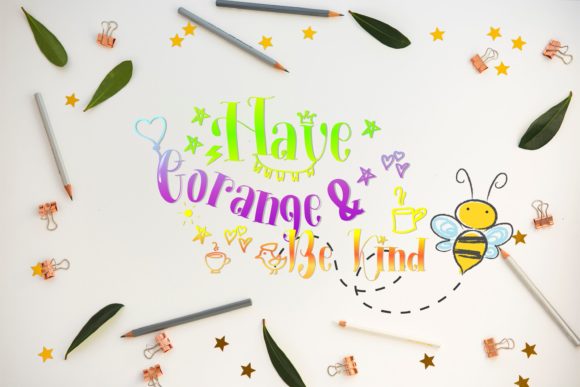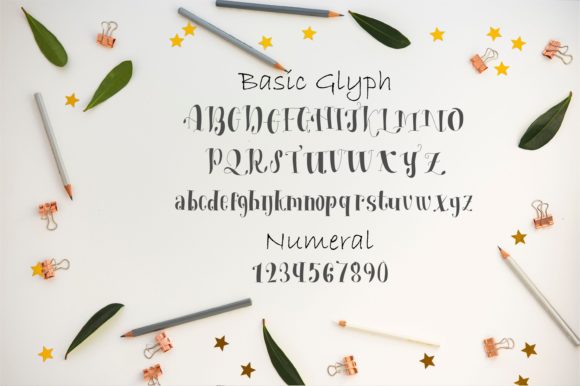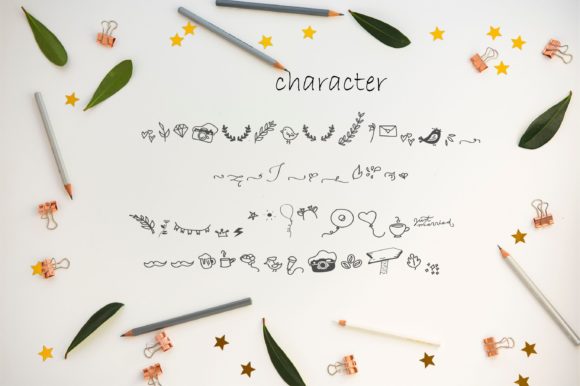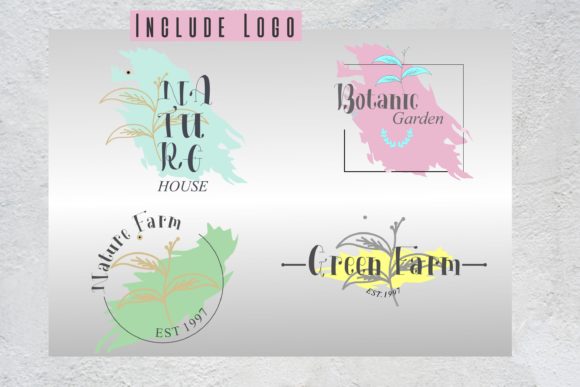
Introduction to Hendys Font
Hendys is a playful and whimsical display font with an incredible charm.
It will add a youthful spark to any design project .
Key Features of Hendys Font
Why Choose Hendys Font?